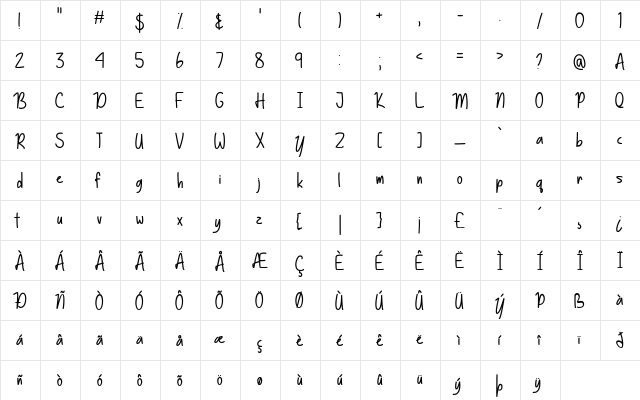
Basically Yes Regular
| Foundry | Misti's Fonts |
| Designer | Misti's Fonts |
Design Context for Basically Yes Typeface
Basically Yes is a composed and adaptable typeface that performs quietly and consistently across a wide range of design contexts.